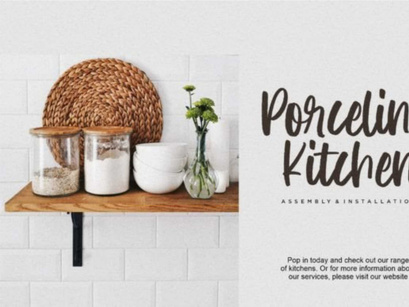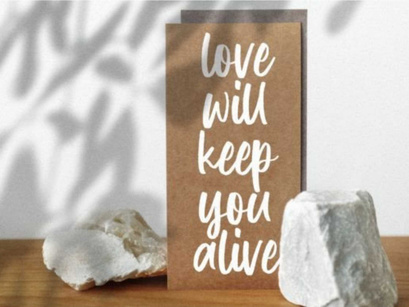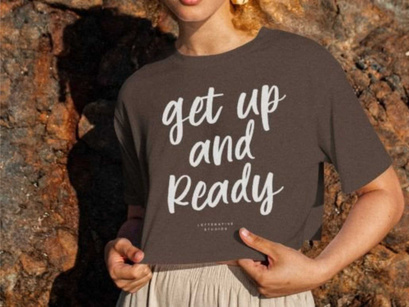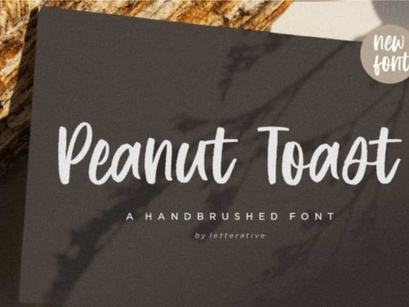
Peanut Toast is a modern and carefully designed handwritten font. This font will turn any creative idea into a true piece of art! This font is PUA encoded, which means you can easily access all of the exquisite glyphs and ligatures!